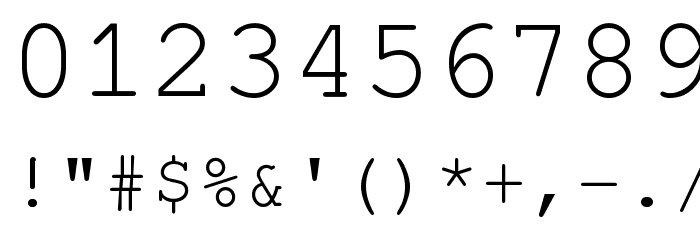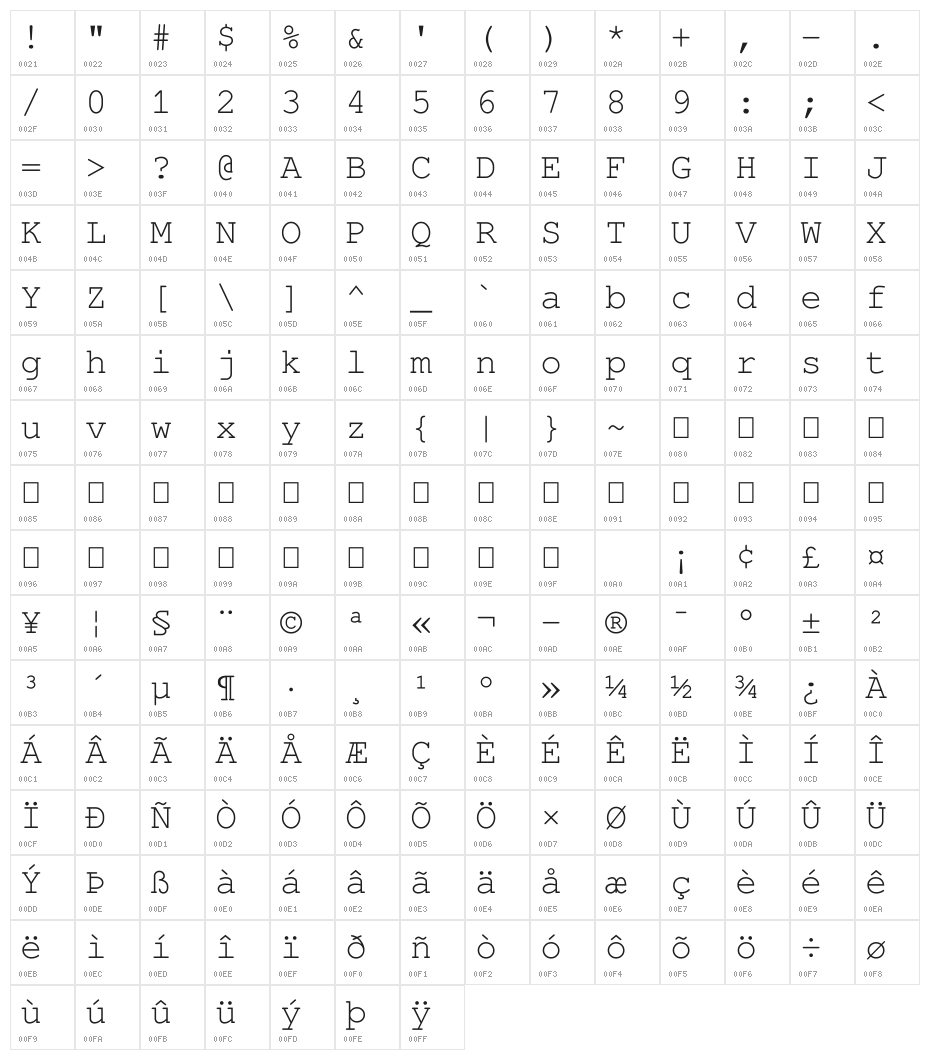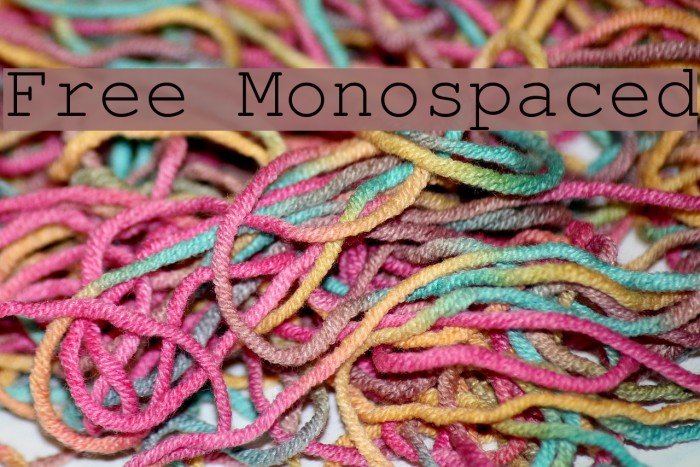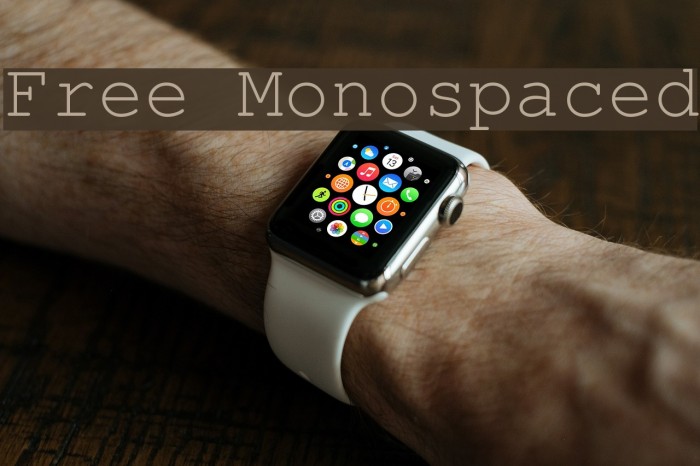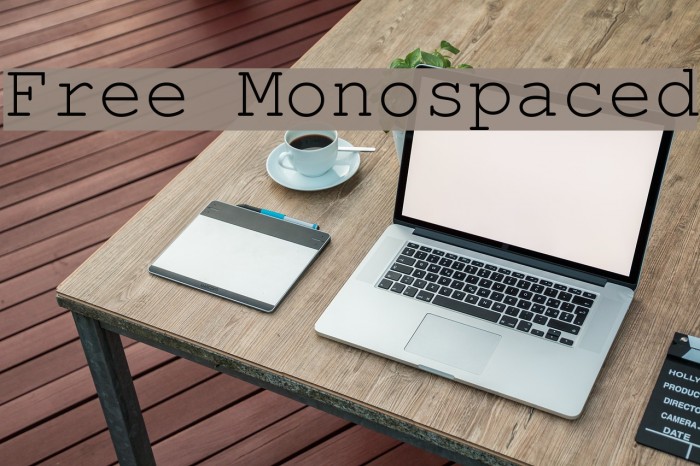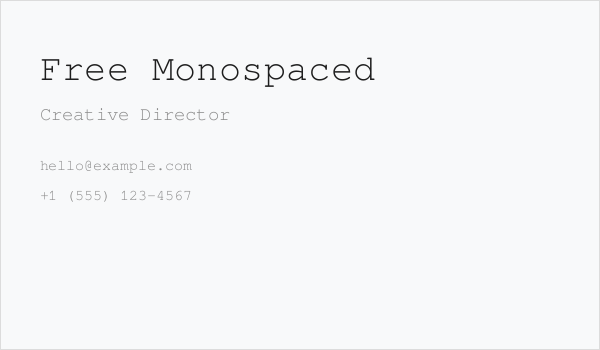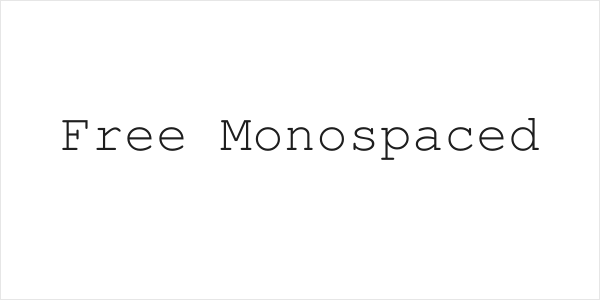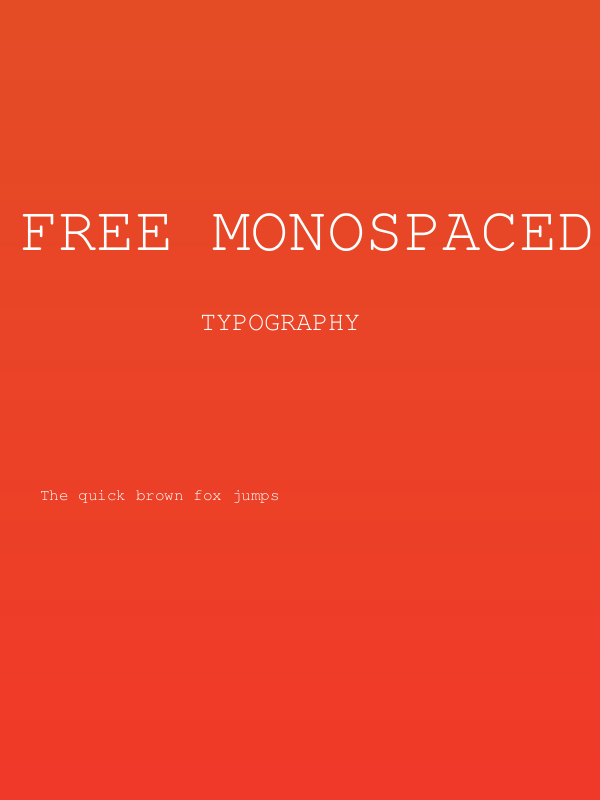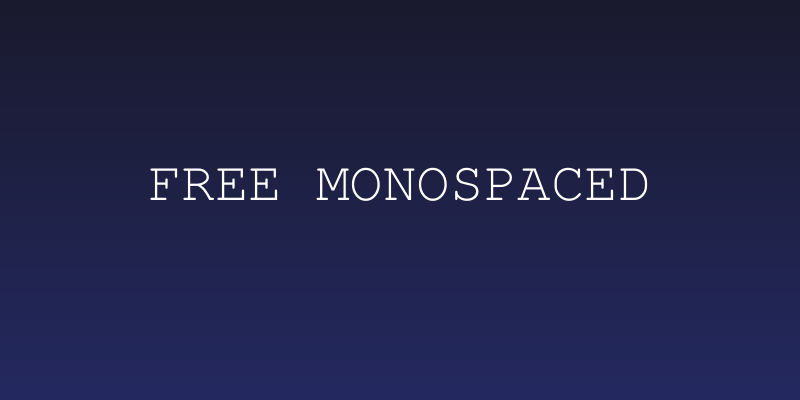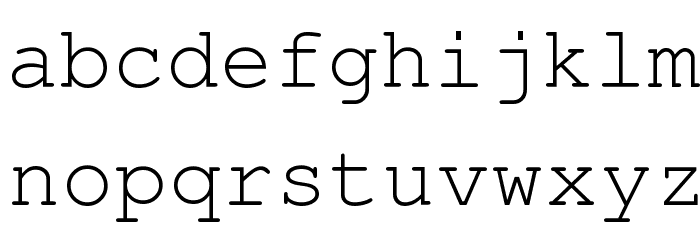
Free Monospaced Font
Free Monospaced Description
This font is a monospaced typeface characterized by its uniform spacing and clean, minimalist design. Each character occupies the same amount of horizontal space, which is typical of monospaced fonts. The letters have a modern, slightly rounded appearance with consistent stroke widths, giving it a balanced and readable look. The uppercase and lowercase letters are well-proportioned, and the numerals are clear and distinct. The special characters are neatly designed, maintaining the overall aesthetic of simplicity and functionality. This font is ideal for coding environments, technical documentation, and any project requiring precise alignment of text.
| Use Case | Coding, Technical documentation |
| Proposed Projects | Ideal for coding, technical documentation, and any project requiring precise text alignment. |